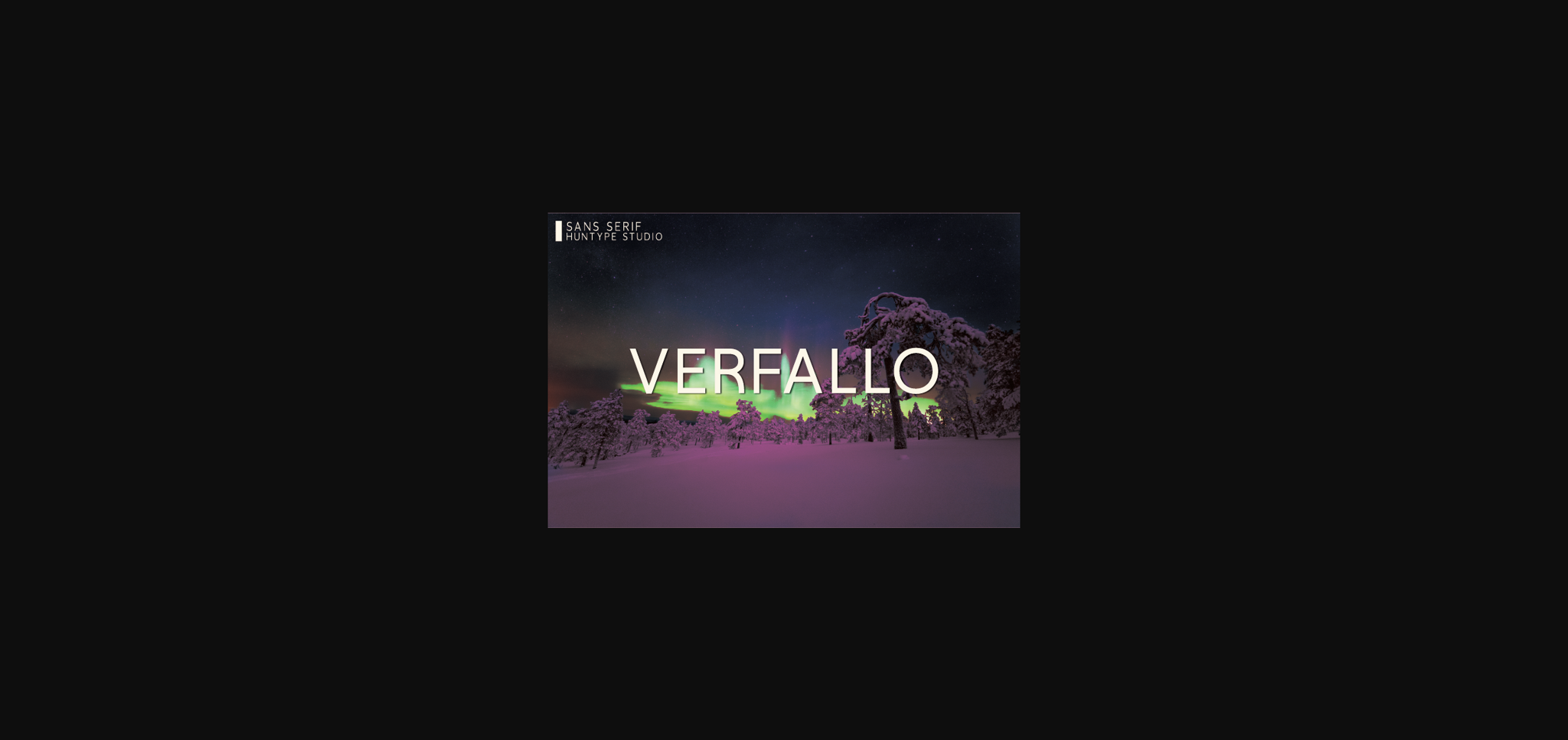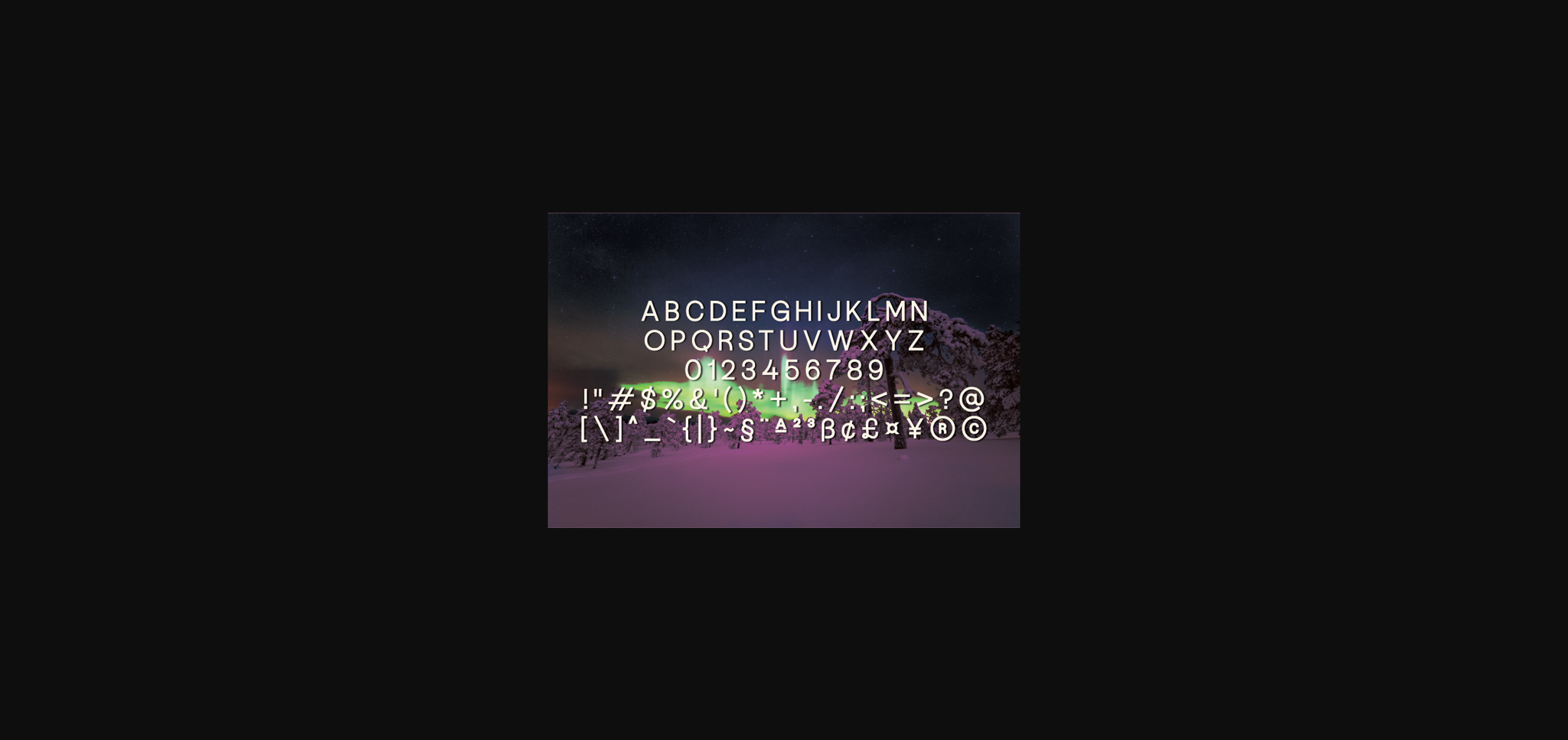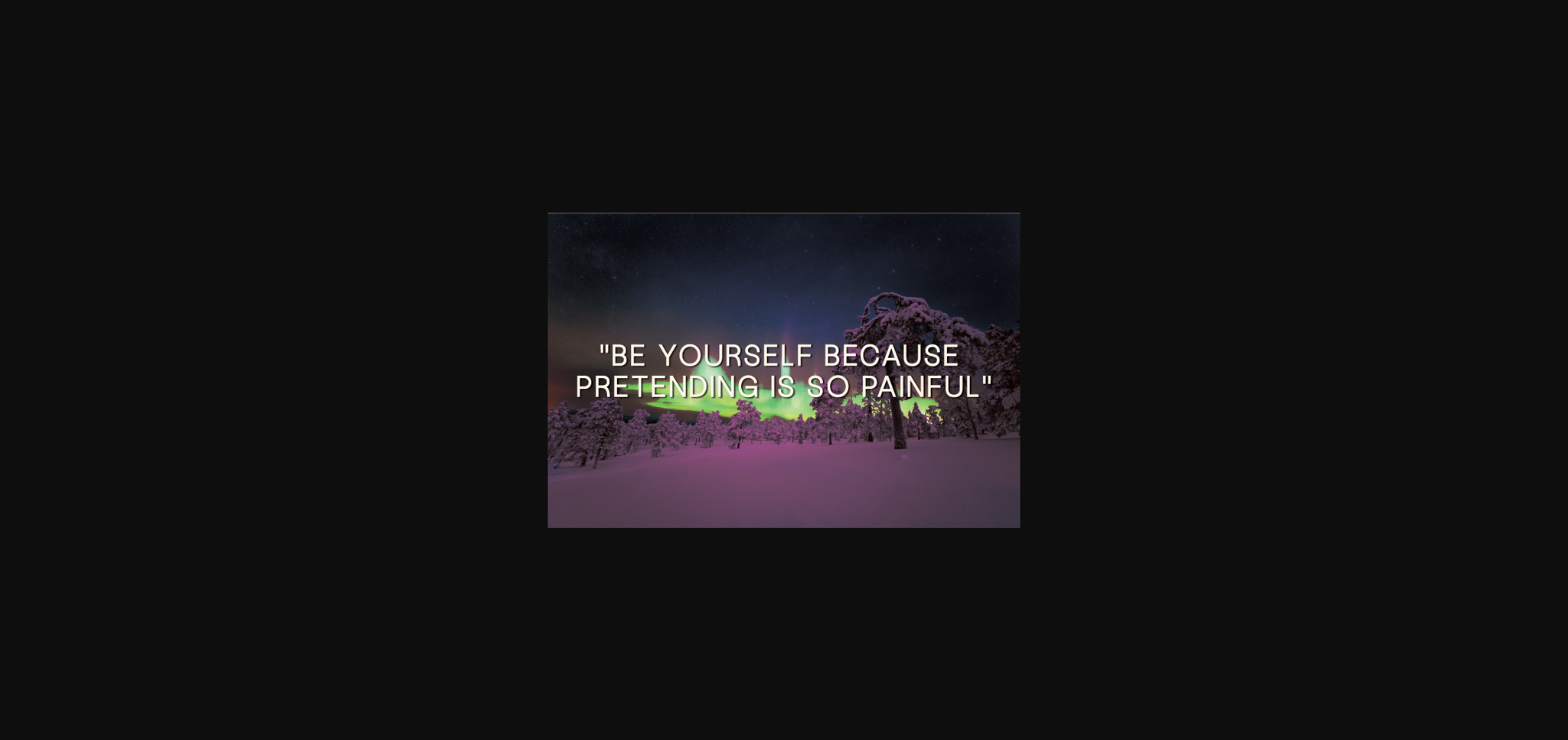
HomeSans Serif FontsVerfallo Font Sans Serif Fonts Verfallo Font FacebookXPinterestWhatsApp 1 of 5 ... Verfallo Font Poster 2... Verfallo Font Poster 3... Verfallo Font Poster 4... Verfallo Font Poster 5... About Verfallo Font Verfallo is a simple and veritable sans serif font. It can easily be matched to an incredibly large set of projects, so add it to your creative ideas and notice how it makes them stand out! DOWNLOAD NOW People also explored Merry and Joy Font Cat Whiskers Font Serenity Script Font Delight Cande Font Rexak Font Grenale #2 Homand Font Sailorman Font Kayleigh Kensley Font 276 0 TagsVerfallo Font Previous articleVerent FontNext articleFrezyline Font LEAVE A REPLY Cancel reply Comment: Please enter your comment! Name:* Please enter your name here Email:* You have entered an incorrect email address! Please enter your email address here Website: Save my name, email, and website in this browser for the next time I comment. Personal Use Free Boldace Personal Use Free Read more about this font Unsteady Overseer Personal Use Free Read more about this font Valentine Chips Personal Use Free Read more about this font Bamboomoe Personal Use Free Read more about this font BLOG Free vs Paid Fonts: Why Investing in Premium Fonts Is Worth It Free vs Paid Fonts: Why Premium Fonts Are Worth It in 2025 The debate of free vs paid fonts continues in the design world. While... Transform Your Website: Elevate Your Typography with 7 Best Web Font Generators Top 10 Handwritten Fonts That Elevate Your Designs How to Cut Any Font on Cricut: Convert a Font to SVG (Free)